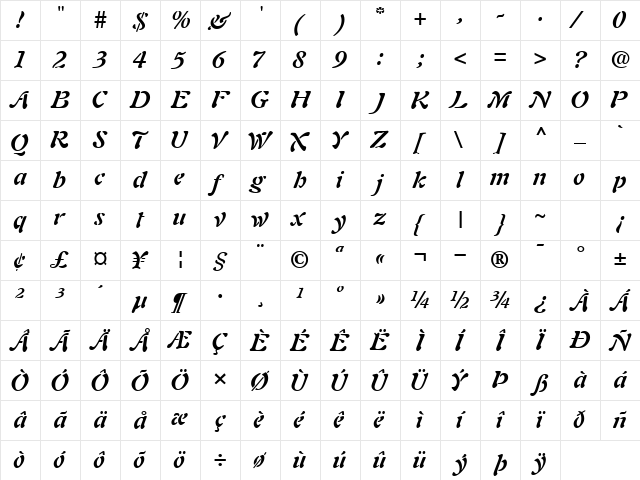
PaletteSSK Bold Italic
Design Context for PaletteSSK
PaletteSSK is a composed and adaptable typeface that performs quietly and consistently across a wide range of design contexts. The slanted form adds forward momentum and visual energy. Its bold stroke weight gives it real presence on the page.
Pro Tip: Use PaletteSSK for emphasis, pull quotes, and subheadings where its slanted energy can add rhythm to the layout.